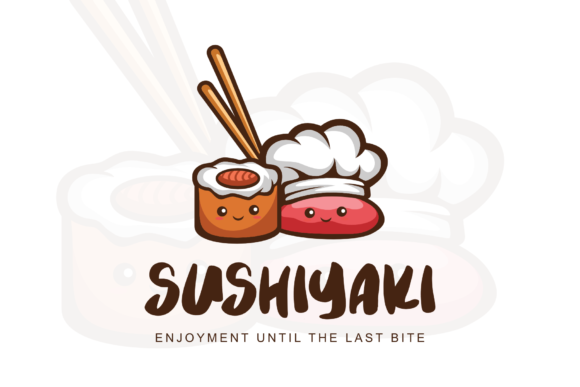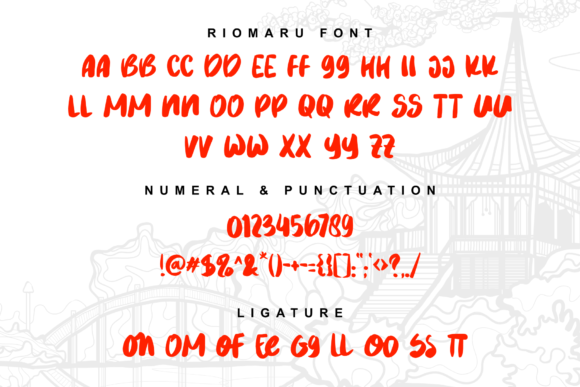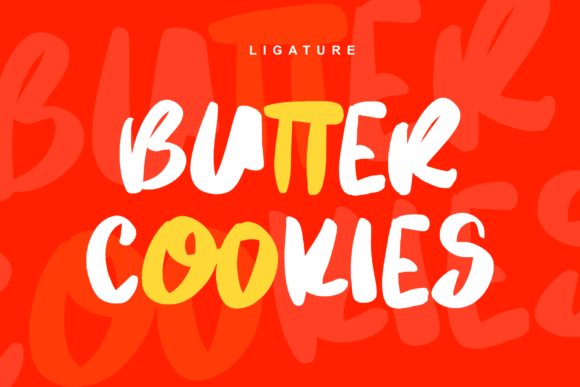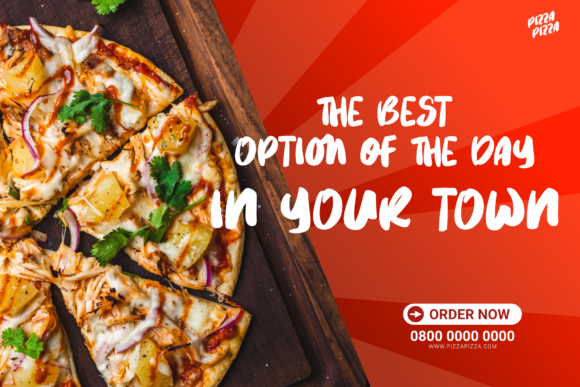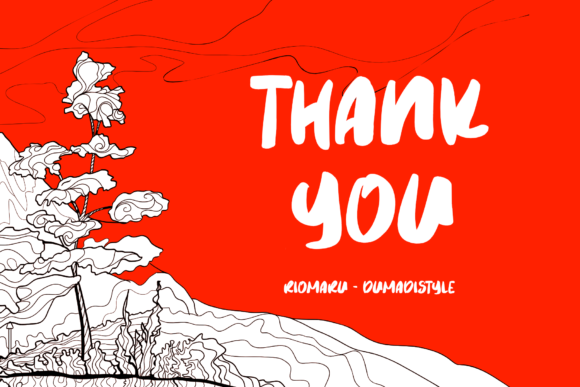
Introduction to Riomaru Font
Riomaru is a thick lettered, playful and brushed display font.
It will be an incredibly asset to your fontsโ library, as it has the potential to elevate any urban or casual creation .
Key Features of Riomaru Font